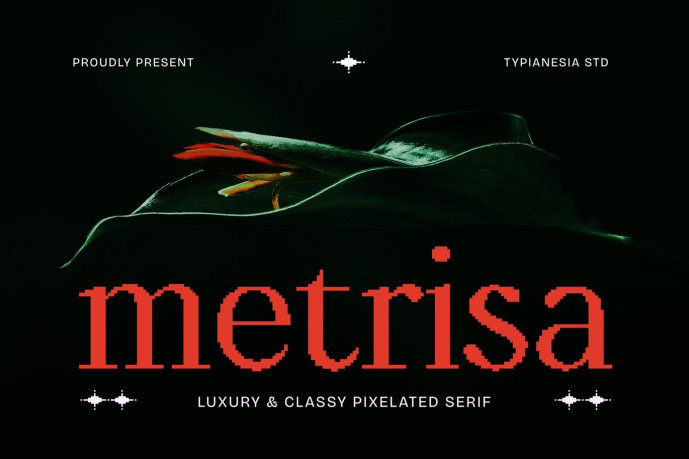
Metrisa – Luxury Elegant Pixel Digital Serif Font
Metrisa – Luxury Pixel Serif Font for Elegant Branding & Editorial Design
Metrisa is a luxury pixel serif font featuring refined proportions, subtle pixel-inspired details, and elegant serif construction. Designed to blend timeless sophistication with a modern digital aesthetic, it creates a distinctive visual identity that feels both classic and contemporary.
Perfect for luxury branding, fashion labels, beauty products, perfume packaging, jewelry brands, editorial layouts, premium logos, invitations, hotel branding, galleries, and upscale marketing materials. Its balanced letterforms, multilingual support, alternates, ligatures, numerals, and punctuation provide exceptional versatility for high-end creative projects.
Elevate your designs with a sophisticated serif that merges luxury elegance with a unique pixel-inspired character.